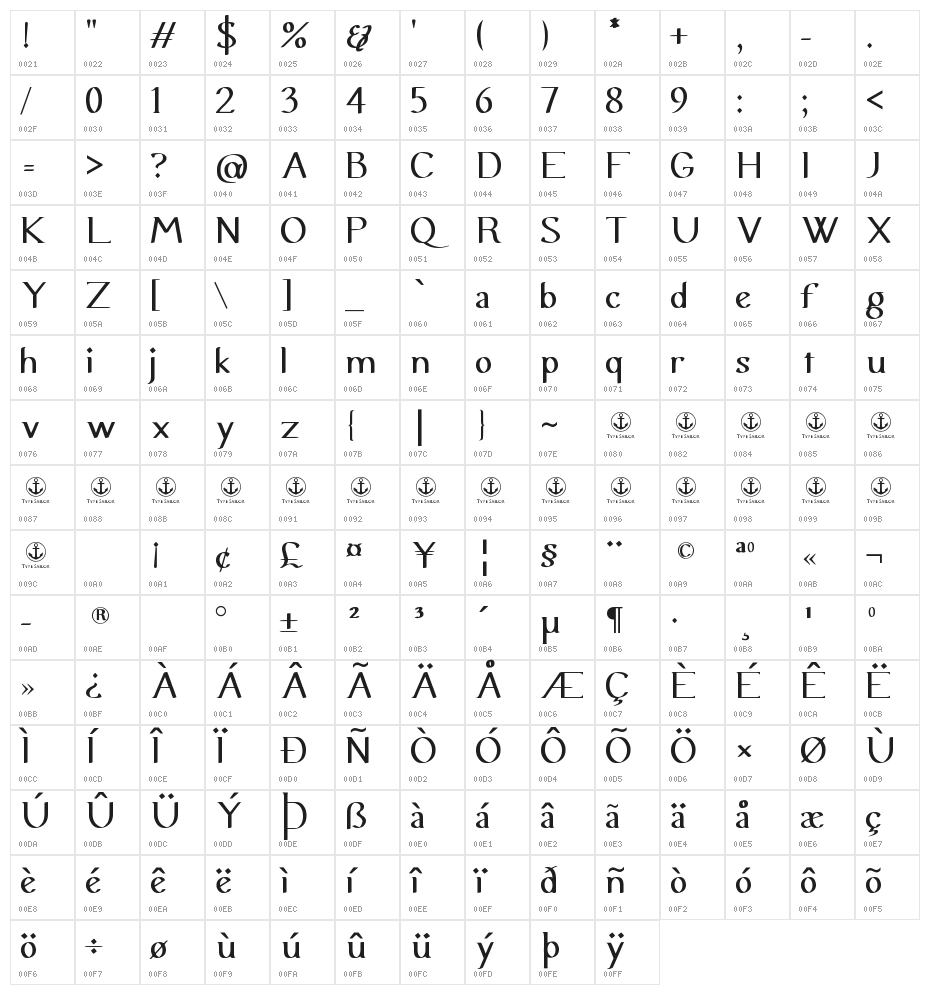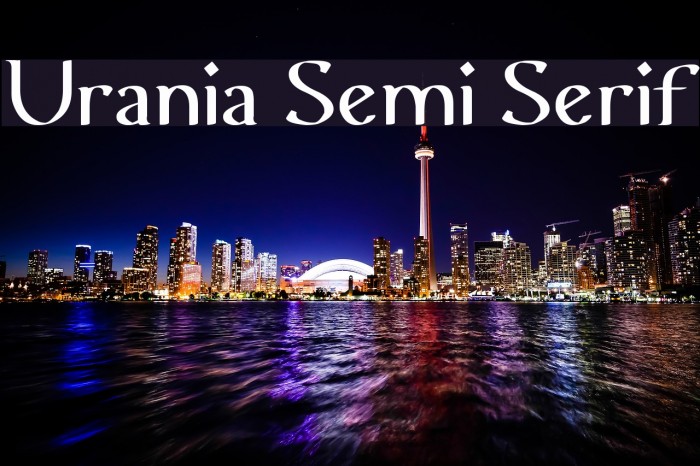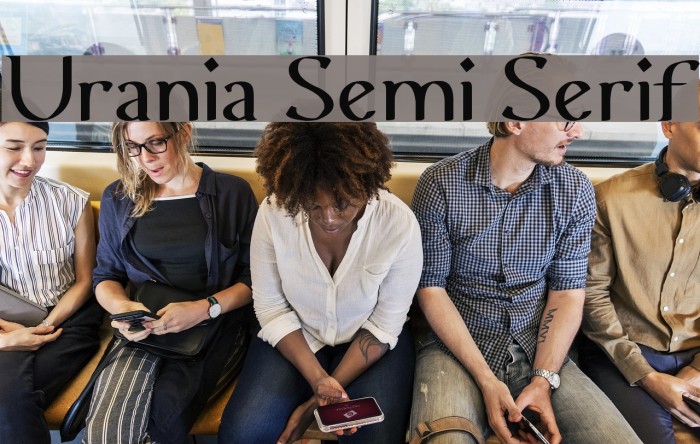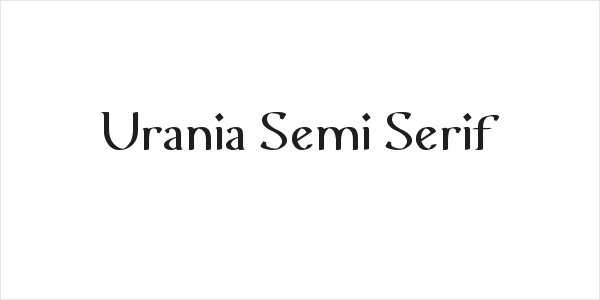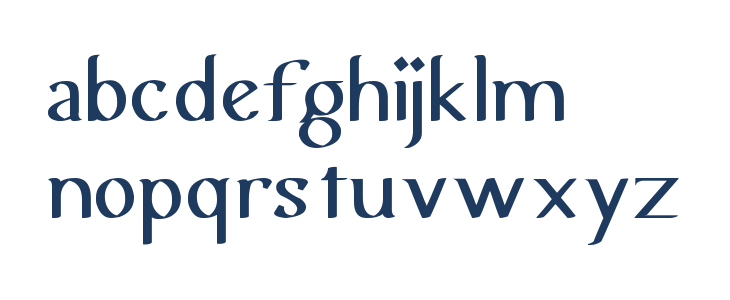
Urania Semi Serif Font
Urania Semi Serif Description
This font blends traditional serif elements with a modern twist, creating a unique semi-serif style. The uppercase letters exhibit a classic elegance with subtle curves and sharp edges, while the lowercase letters maintain a smooth, flowing appearance. The numerals are distinct and clear, ensuring readability. Special characters are crafted with attention to detail, enhancing the font's versatility. This font's semi-serif nature offers a balance between formality and creativity, making it suitable for various design applications.
| Proposed Projects | Ideal for branding, editorial design, and sophisticated print materials. |